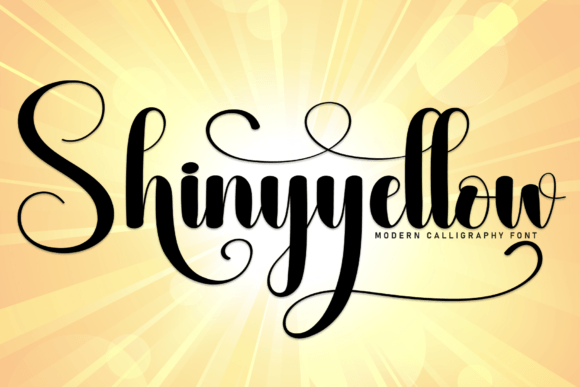
Introducing Shinyyellow Font, the captivating script font that adds a touch of warmth and charm to your creative projects. Experience the delight of expressing your emotions with this enchanting font, designed to capture the essence of heartfelt sentiments.
With its graceful strokes and elegant curves, Shinyyellow Font embodies the spirit of love and togetherness. This font is a masterpiece meticulously crafted by William Jhody, a renowned font designer known for his ability to weave stories into his creations.
As you immerse yourself in the world of Shinyyellow Font, you'll discover a font that dances across your screen, leaving a trail of joy and inspiration. Its delicate ligatures and alternates provide endless possibilities for customization, allowing you to create designs that are uniquely yours.
Step into a world where emotions come alive as you use Shinyyellow Font to craft beautiful wedding invitations, heartfelt greeting cards, or any project that deserves a touch of elegance. Its versatility extends beyond personal use, making it a perfect choice for creating stunning branding materials, logos, and website designs that leave a lasting impression.
Embrace the magic of Shinyyellow Font and embark on a creative journey filled with love, happiness, and heartfelt connections. This font is not just a collection of letters; it's an expression of your soul, a way to share your stories, and touch the lives of others.